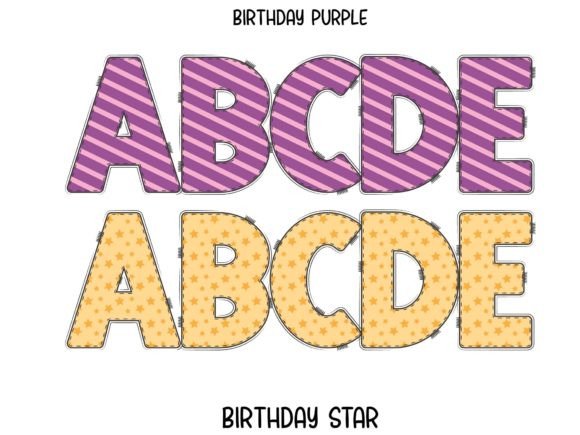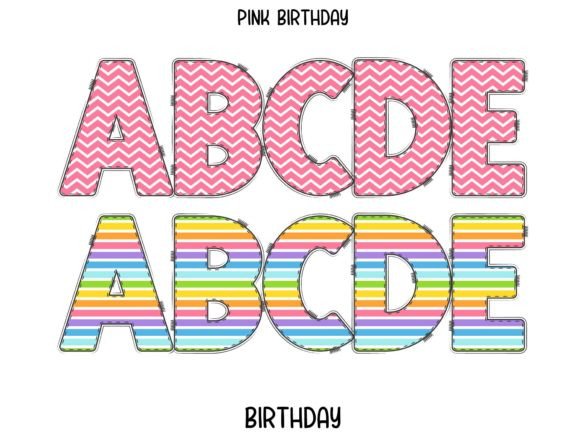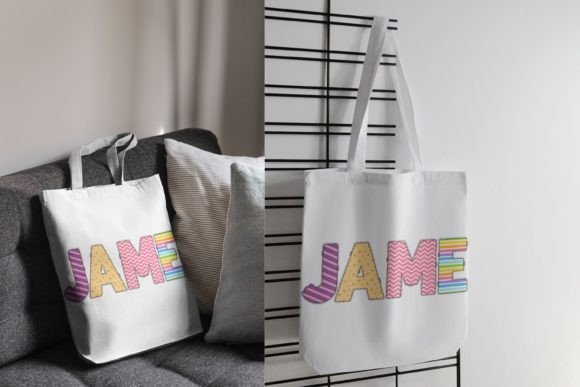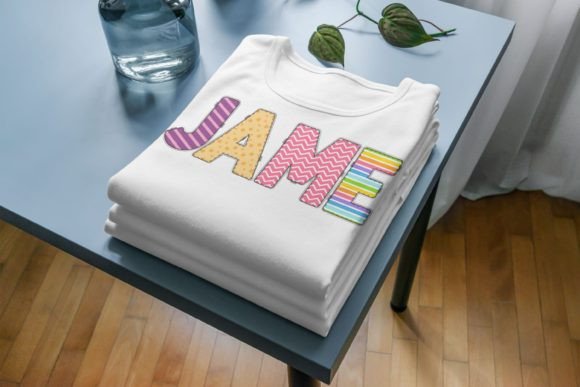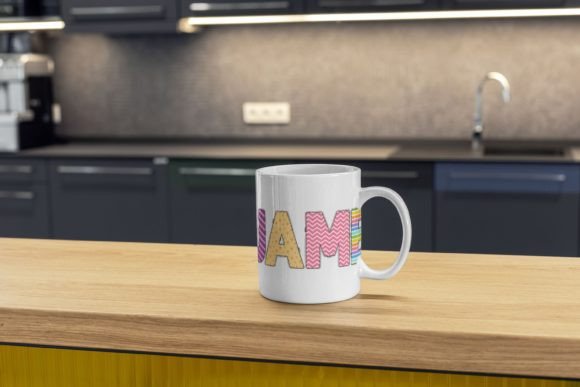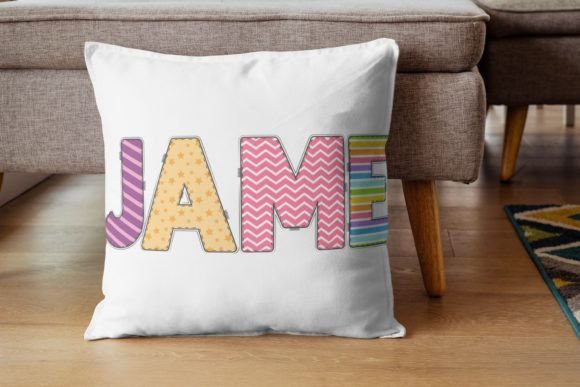
Introducing Birthday Font: The Perfect Addition to Your Design Arsenal
Are you on the lookout for a font that exudes playfulness, authenticity, and modernity? Look no further than the Birthday Font! This delightful font is designed to bring a jolly touch to any project, making it an ideal choice for designers and crafters alike. In this article, we’ll dive into the features and benefits of the Birthday Font, as well as provide guidance on how to use it with various design programs and cutting machines.
A Font that Embodies Playfulness and Authenticity
The Birthday Font is a cute, lovely, and friendly color font that is sure to capture the essence of any celebration. Its modern design and bold personality make it perfect for a wide range of applications, from party invitations and decorations to social media graphics and digital art. Whether you’re a professional designer or a DIY crafter, this font is sure to inspire your creativity and add a touch of whimsy to your projects.
Why Choose the Birthday Font?
So, what sets the Birthday Font apart from other fonts on the market? Here are just a few reasons why designers and crafters love this font:
- Playful and modern design: The Birthday Font is designed to bring a touch of whimsy and fun to your projects.
- Authentic and unique: This font is sure to stand out from the crowd and add a personal touch to your designs.
- Versatile: The Birthday Font is perfect for a wide range of applications, from digital art to party decorations.
Tips and Tricks for Using the Birthday Font
To get the most out of the Birthday Font, here are a few tips and tricks to keep in mind:
- Experiment with colors: The color version of this font offers endless possibilities for customization and creativity.
- Mix and match: Combine the Birthday Font with other fonts and design elements to create unique and eye-catching compositions.
In conclusion, the Birthday Font is a versatile and delightful addition to any design arsenal. Its playful, modern, and authentic design makes it perfect for a wide range of applications, from digital art to party decorations. With its compatibility with various design programs and cutting machines, you can easily incorporate this font into your workflow. So why wait? Download the Birthday Font today and start adding a touch of whimsy and fun to your projects!